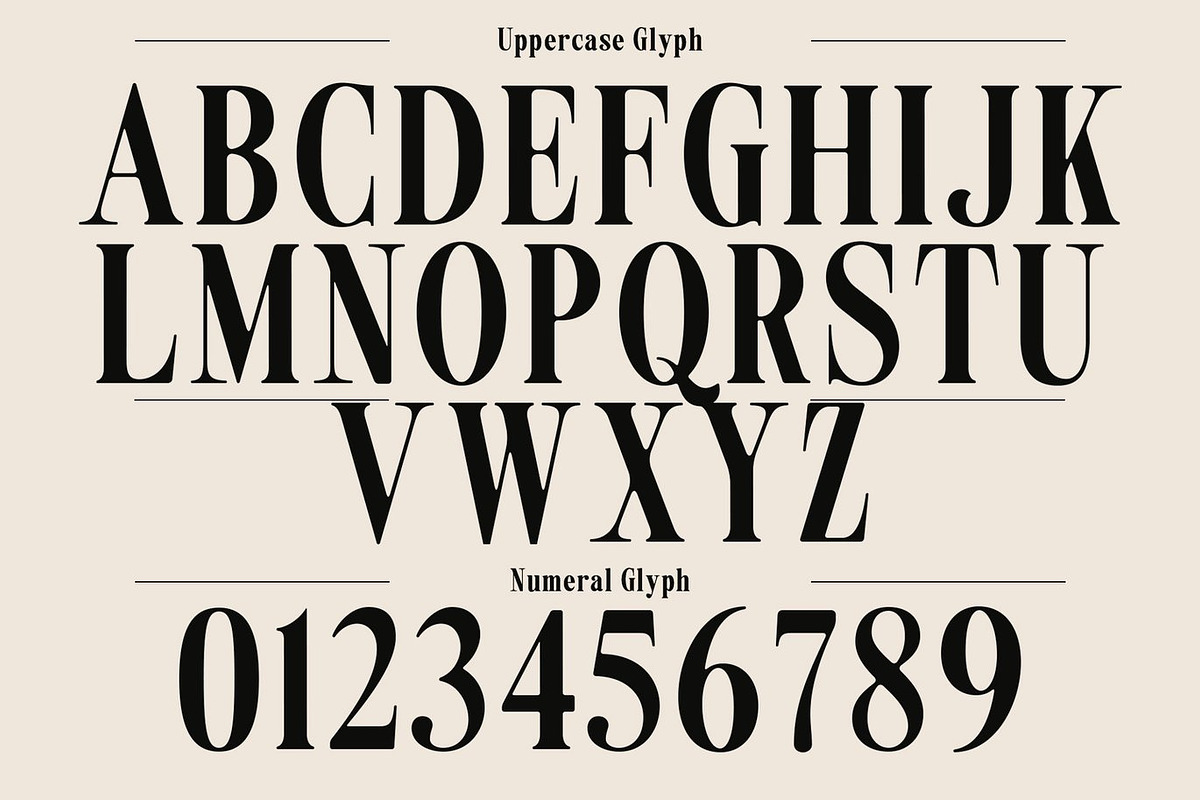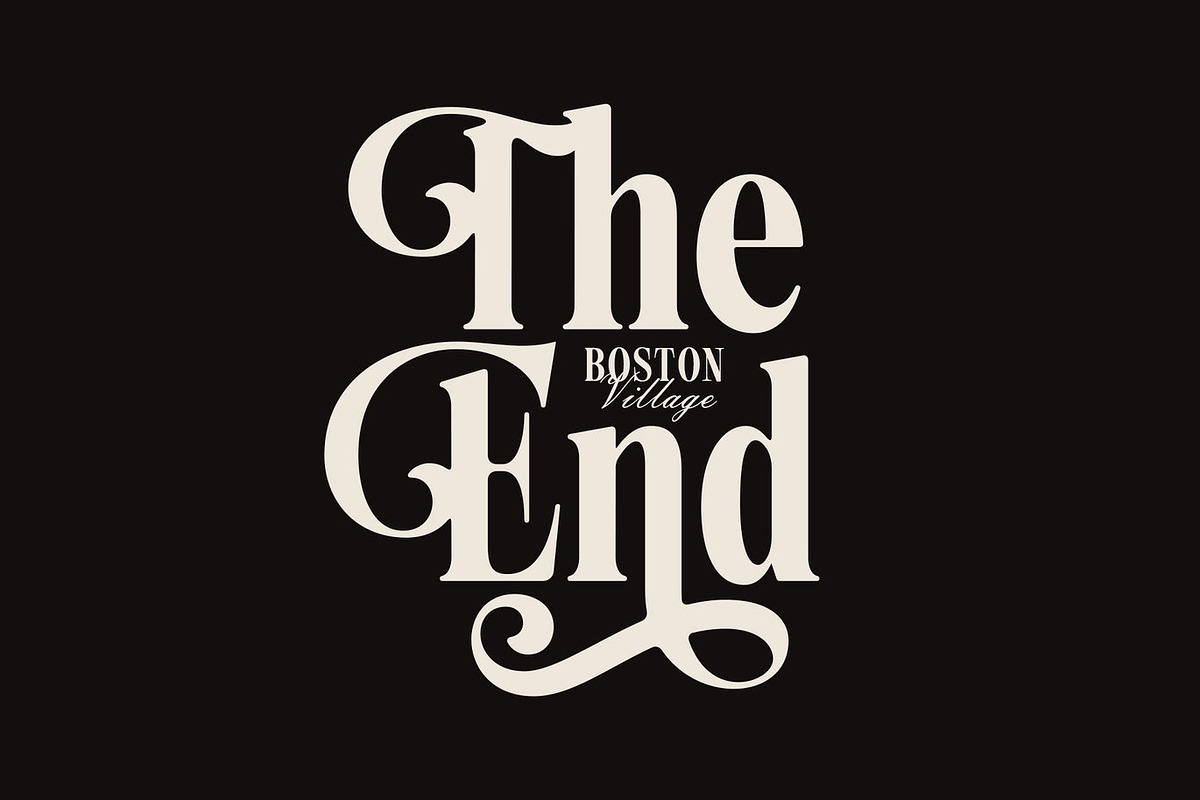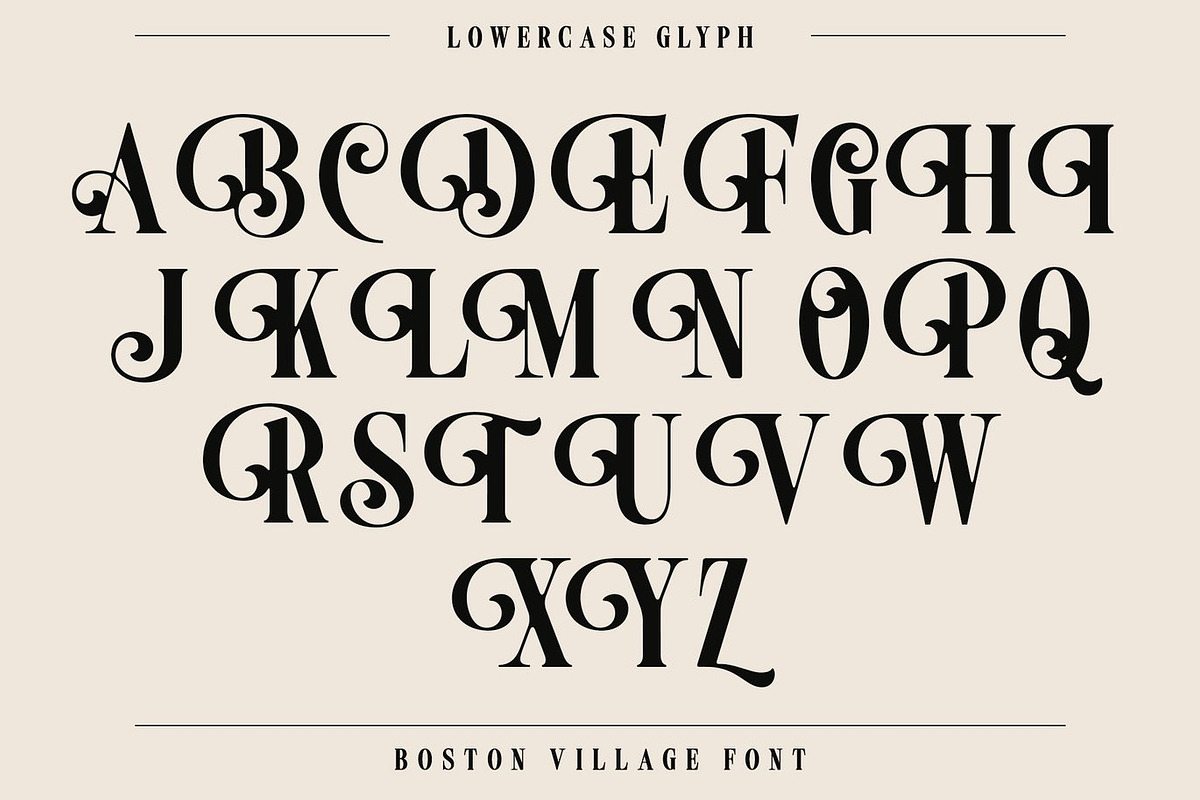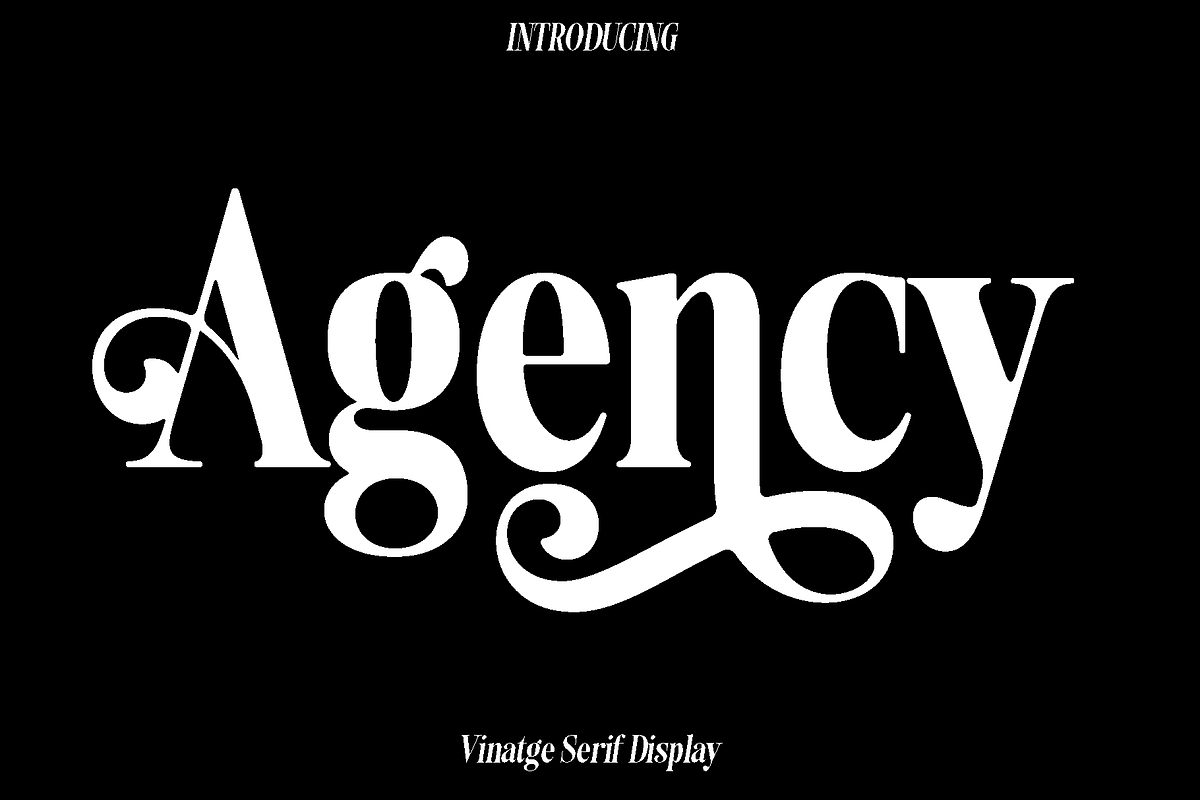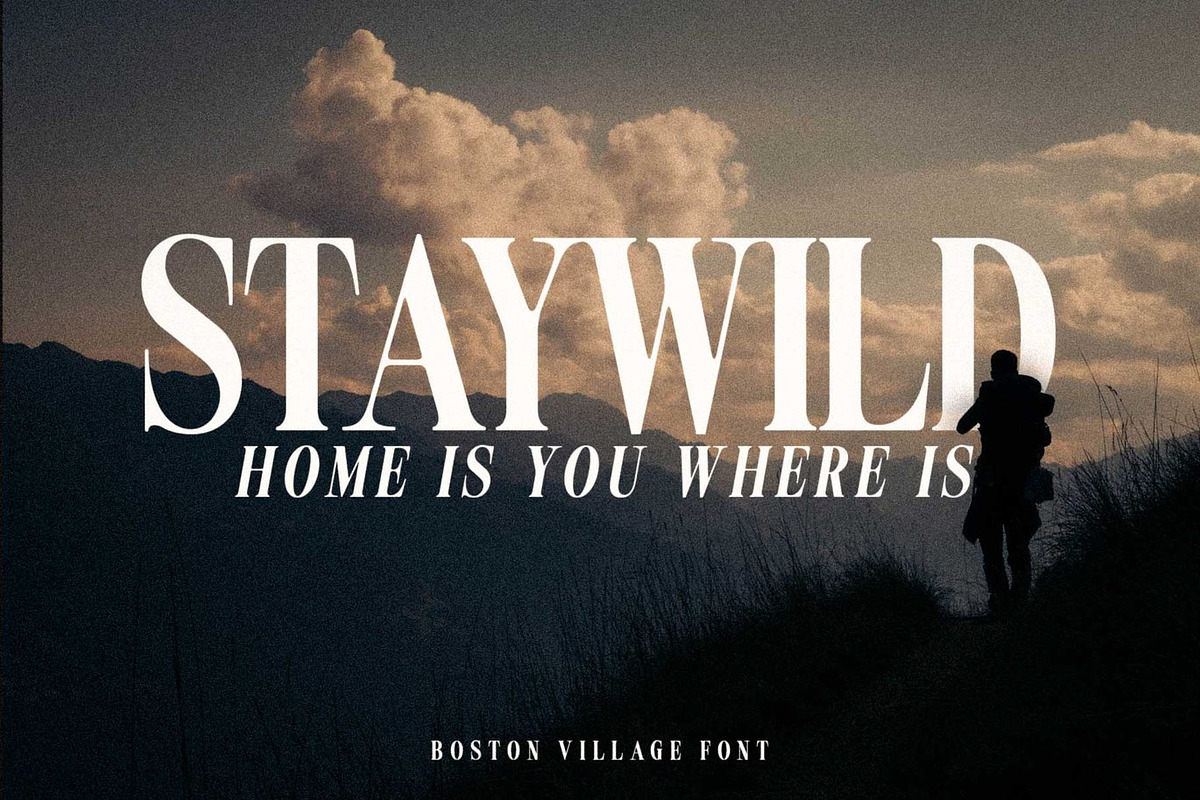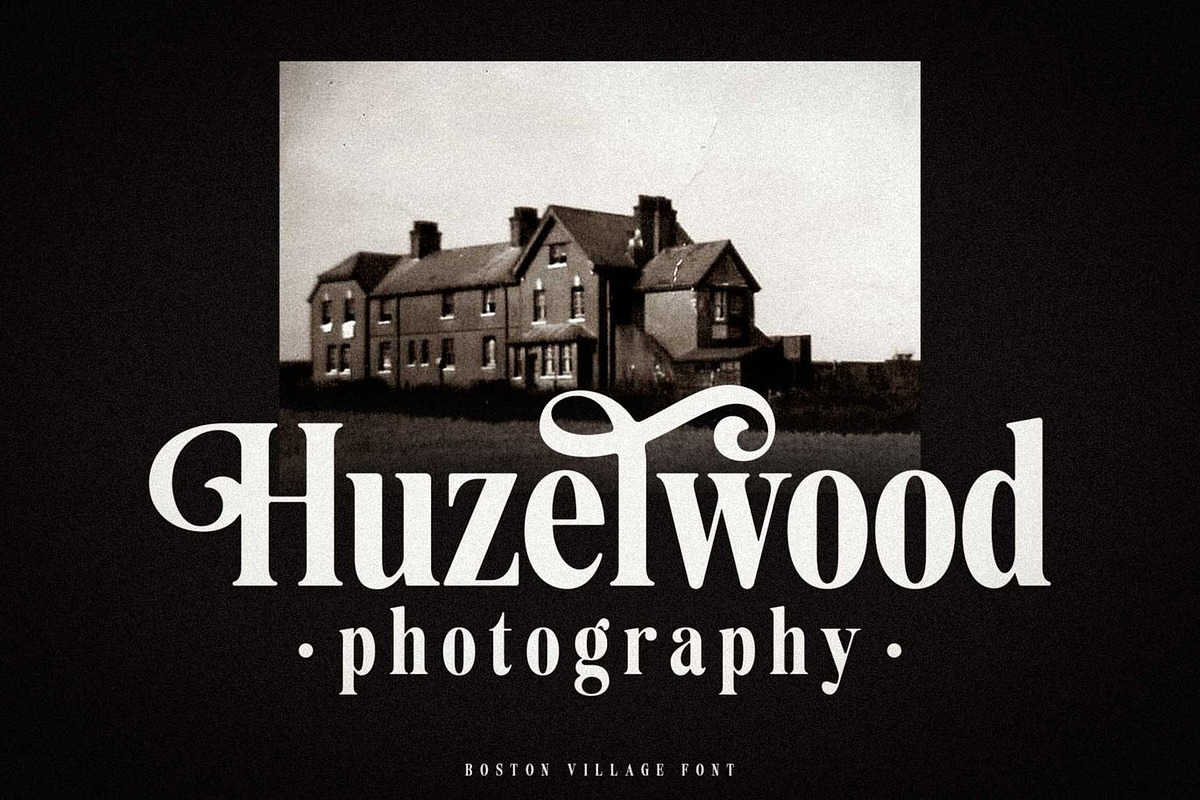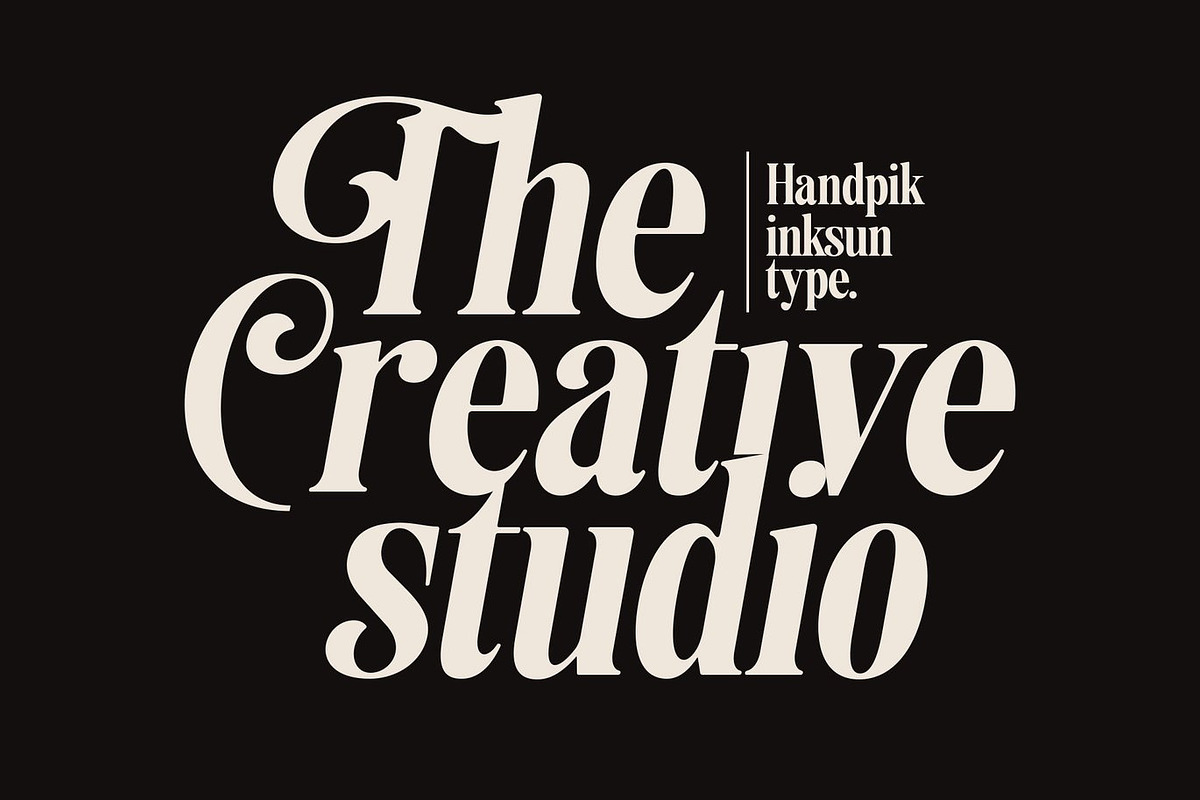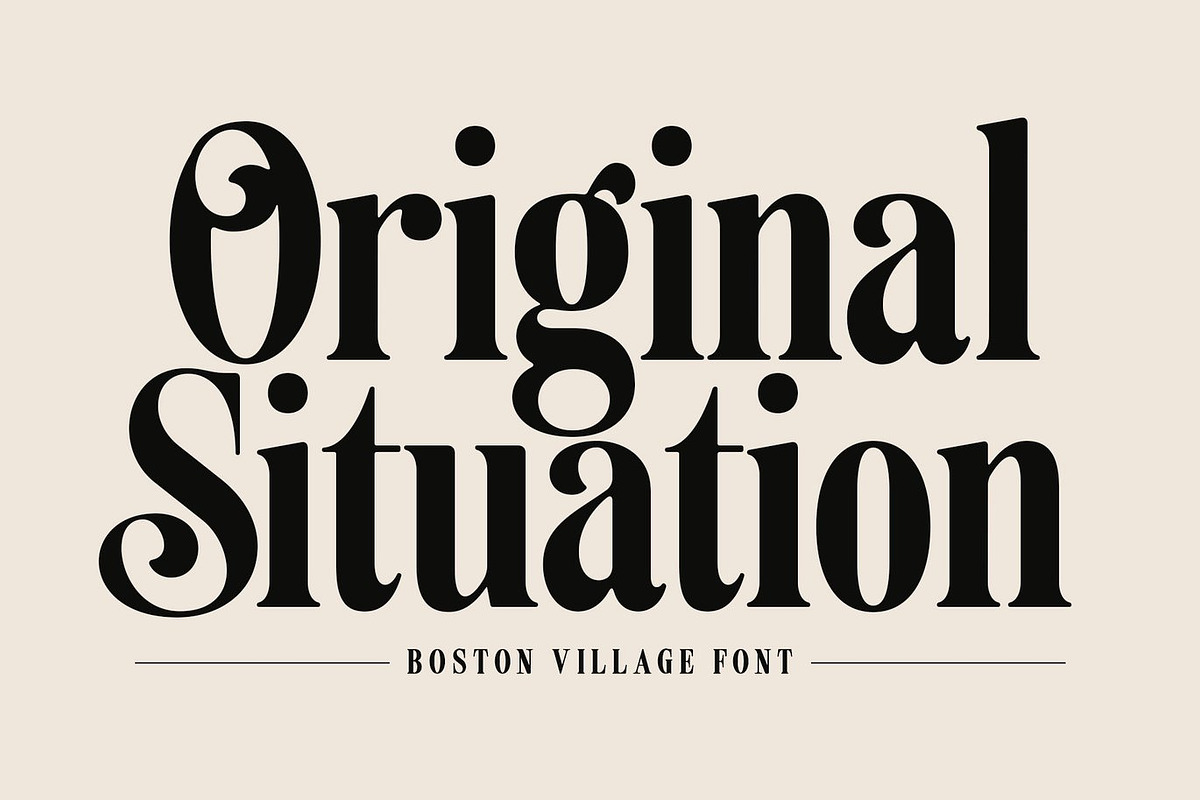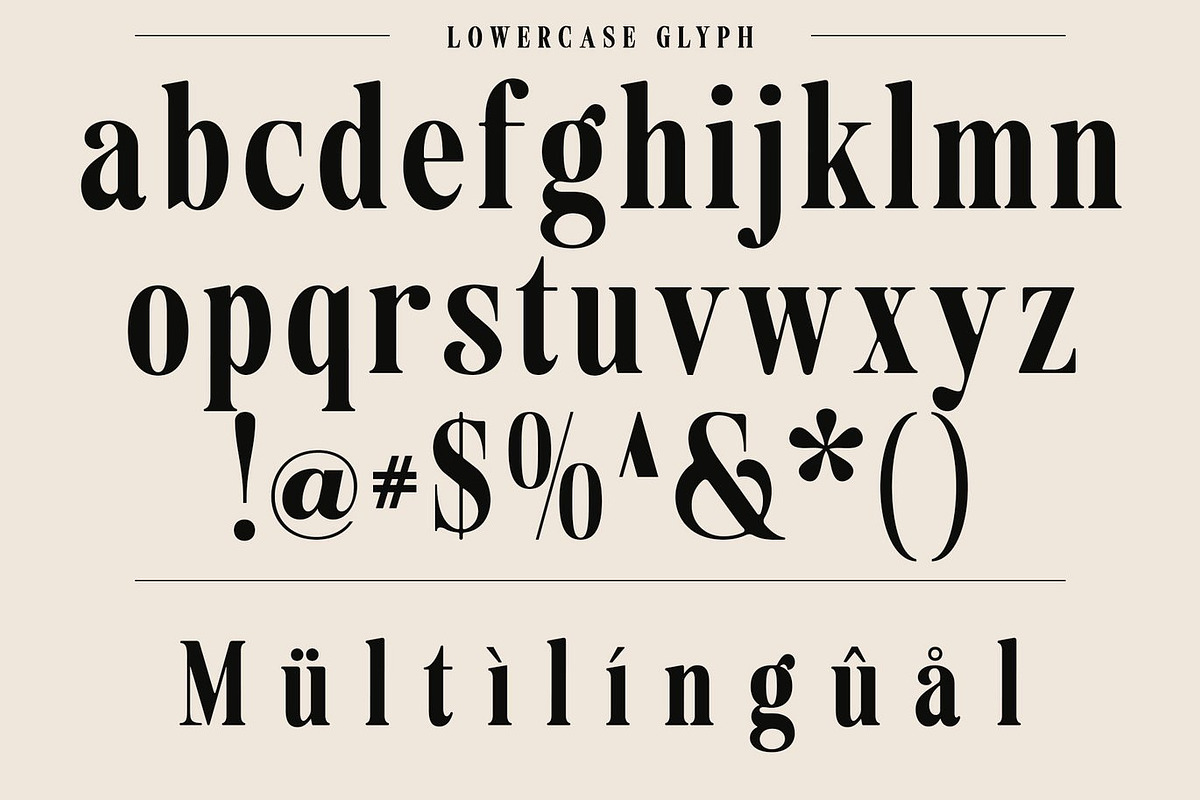
Agency Vinatge Serif Display
Agency is a minimalist yet elegant font that combines modern sensibilities with subtle vintage charm. Designed with clean lines and refined proportions, it brings a sophisticated and versatile aesthetic to every project. Agency is perfect for designers who want their typography to feel contemporary, stylish, and timeless, whether used in bold headlines or delicate details.
This font shines in a wide range of creative applications. It works beautifully for branding projects, logo design, fashion and clothing labels, product packaging, magazine headers, social media graphics, and stylish text overlays. Its minimalist structure ensures legibility in both large and small sizes, while its vintage-inspired elegance adds character and distinction.
Agency comes with a full set of styles, including the standard version and Slant Italic, allowing for dynamic and flexible design options. It also includes uppercase and lowercase letters, numerals, punctuation, and multilingual support, making it suitable for global projects. The combination of modern clarity and subtle stylistic flourishes makes Agency an essential choice for designers seeking versatility, elegance, and timeless appeal.
Agency Font Features:
• Minimalist and elegant modern vintage design
• Stylistic and versatile characters
• Includes Regular/Italic version
• Uppercase and lowercase letters
• Numerals, punctuation, and multilingual support
Agency elevates your work with a refined, contemporary, and stylish presence, making it perfect for designers who want to create memorable and sophisticated visual experiences.